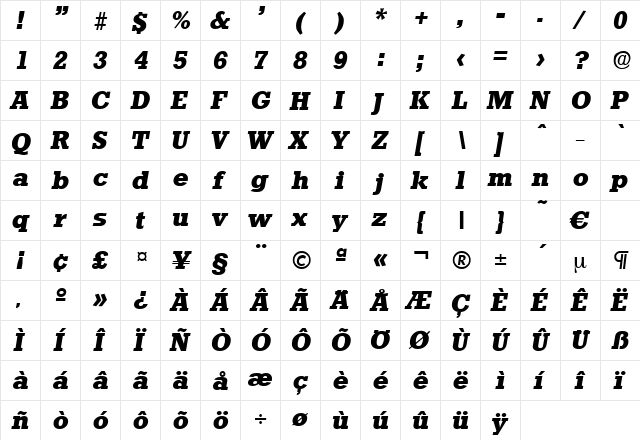
Stafford-BoldIta Regular
Design Context for Stafford-BoldIta Typeface
Stafford-BoldIta takes a measured approach to typography — its balanced proportions and neutral character make it a reliable workhorse for both digital and print work. The heavy weight commands attention and anchors typographic hierarchies.